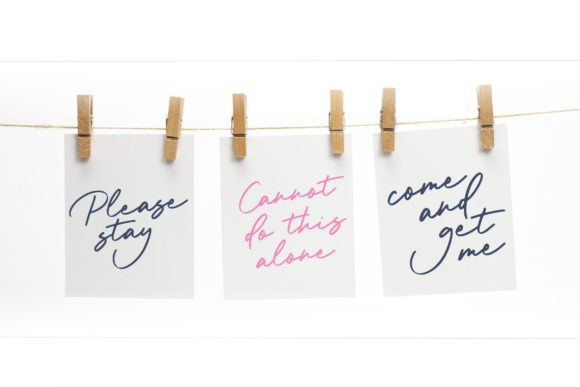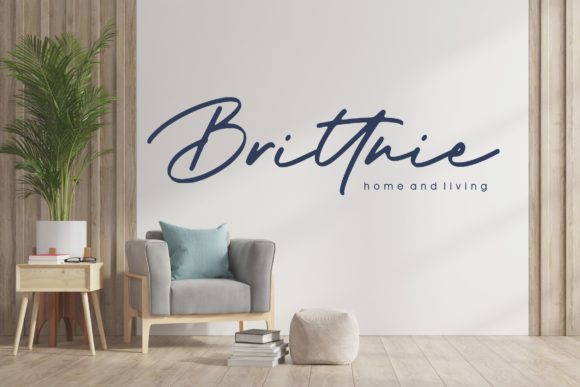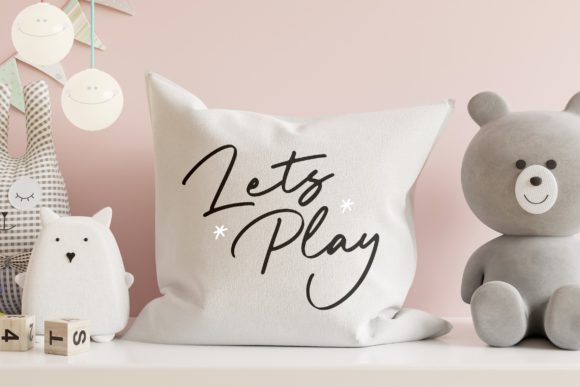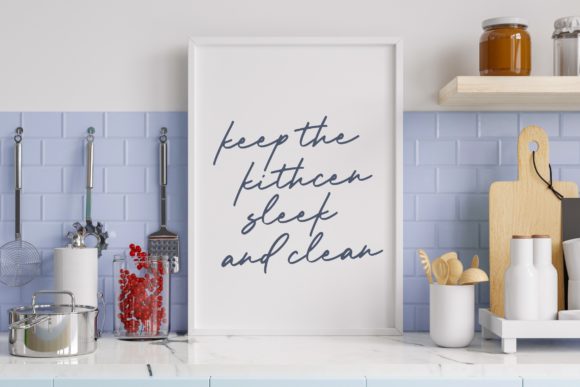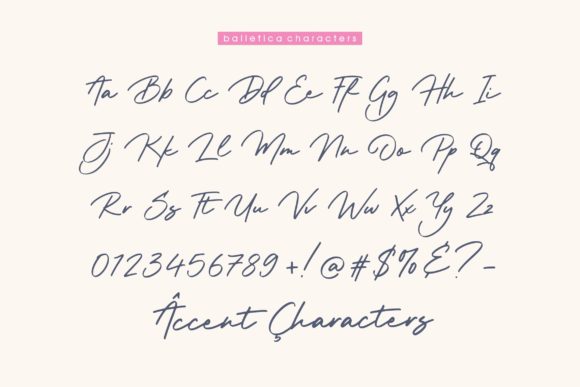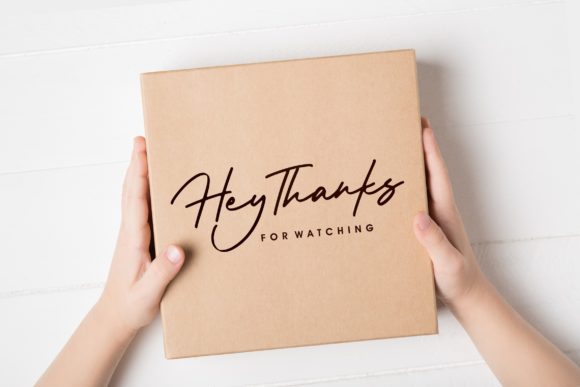
The Perfect Font for the Perfect Project
As designers, we’ve all been there – staring at a blank canvas, trying to conjure up the perfect idea. And then, it hits us – a spark of creativity that sets our imagination ablaze. For some, it’s a beautiful sunset; for others, it’s a sleek, modern font that elevates their design to the next level.
Enter the Balletica Script Font, a chic and refined script font that exudes sophistication and elegance. Its stylish alternates and ligatures make it the perfect match for any project, from luxurious invitations to high-end branding. Whether you’re a seasoned pro or a budding designer, this font is sure to impress. With the Balletica Script Font, you can add a touch of refinement and class to your designs, setting yourself apart from the rest.
Balletica Script Font Key Features
- Font Style: Elegant Script Font with a touch of sophistication and whimsy
- Unique Characteristics: Hand-drawn design with subtle flair and movement, ideal for wedding invitations, branding, and creative projects
Balletica Script Font Review
I’ve had the pleasure of working with the Balletica Script Font, and I must say it’s a beautiful addition to any design project. ✨ The flowing curves and elegant lines make it perfect for creating a sophisticated and luxurious feel. It’s ideal for titles, headings, and any text that needs a touch of sophistication.
- ✨ Beautifully crafted with a unique and elegant style
- ✨ Perfect for titles, headings, and luxury branding
- ✨ Highly customizable with a wide range of weights and styles
However, there are a few limitations to keep in mind. ⚠️ The font may not be the best choice for body text, as it can be quite dense and may be difficult to read in smaller sizes. Additionally, the font may not be compatible with all operating systems or devices, so it’s essential to test it thoroughly before using it in a design project.
Overall, I’m thoroughly impressed with the Balletica Script Font. It’s a stunning addition to any design project, and with a little creativity and experimentation, it can be used to create truly breathtaking designs. Just be aware of its limitations, and you’ll be well on your way to creating stunning designs that impress.
Tips for Getting the Most Out of Balletica Script
To get the most out of Balletica Script, use it for:
- Special occasion graphics
Experiment with different font sizes, colors, and combinations to achieve a unique and elegant look.
Alternatives to Balletica Script Font
Great Vibes is a beautiful, elegant script font that is perfect for creating a romantic and whimsical atmosphere. It is ideal for use in wedding invitations, greeting cards, and other special occasions. Great Vibes is more ornate than Balletica Script Font, with a more fluid and cursive feel.
Carolyna Pro is a high-end script font that is perfect for luxury brands and high-end design projects. It has a sophisticated and elegant feel, making it ideal for use in corporate branding, advertising, and other professional applications. Carolyna Pro is more formal and polished than Balletica Script Font, with a more refined and precise feel.
Alex Brush is a classic, elegant script font that is perfect for use in a variety of design projects. It has a warm and inviting feel, making it ideal for use in packaging, advertising, and other design applications. Alex Brush is more subtle and understated than Balletica Script Font, with a more delicate and refined feel.
Dancing Script is a lively and playful script font that is perfect for use in fun and creative design projects. It has a dynamic and energetic feel, making it ideal for use in social media, advertising, and other design applications. Dancing Script is more playful and whimsical than Balletica Script Font, with a more fluid and expressive feel.
What is the recommended font size and line spacing for Balletica Script?
The recommended font size for Balletica Script is between 18-24 points, depending on the intended use and design context. For optimal readability, we recommend a line spacing of 1.2-1.5 times the font size. This will ensure that the text is clear and easy to read, while maintaining the elegant feel of the font.